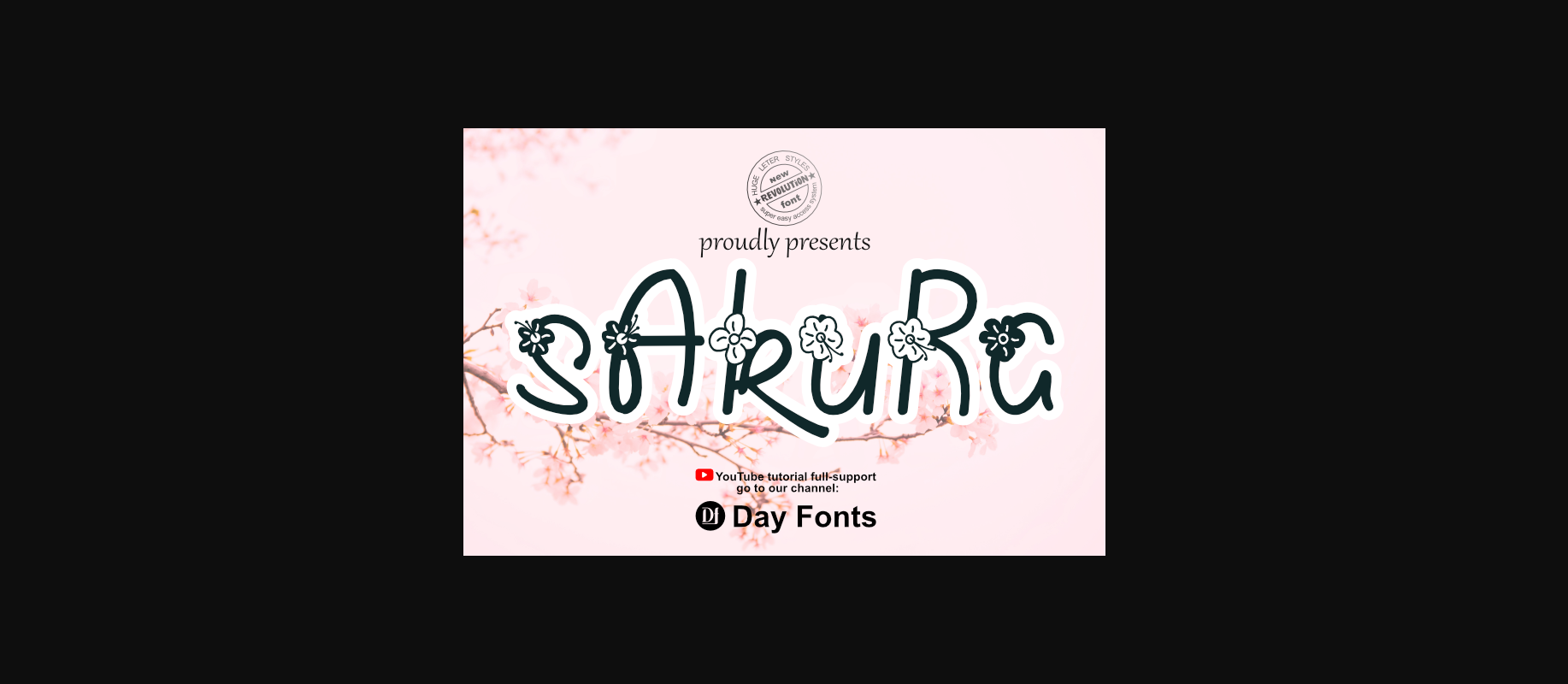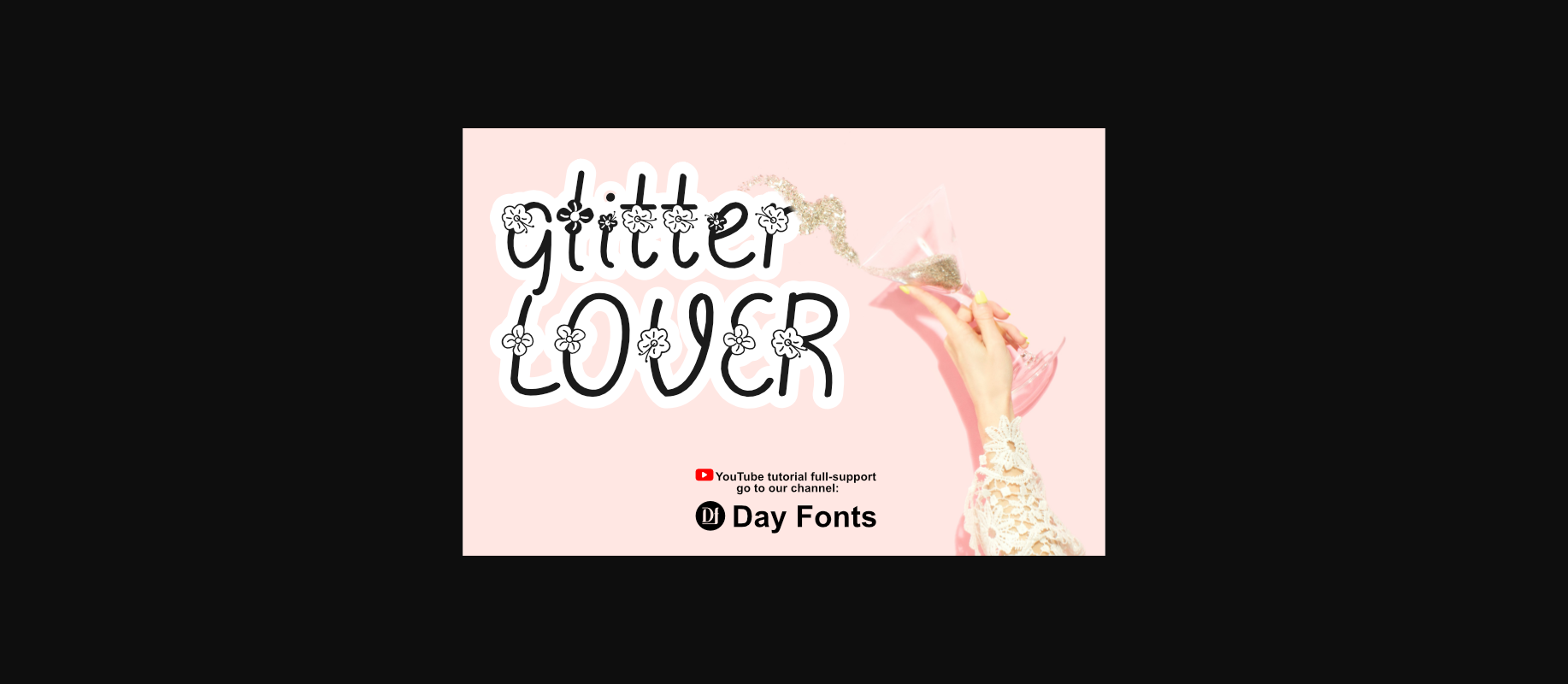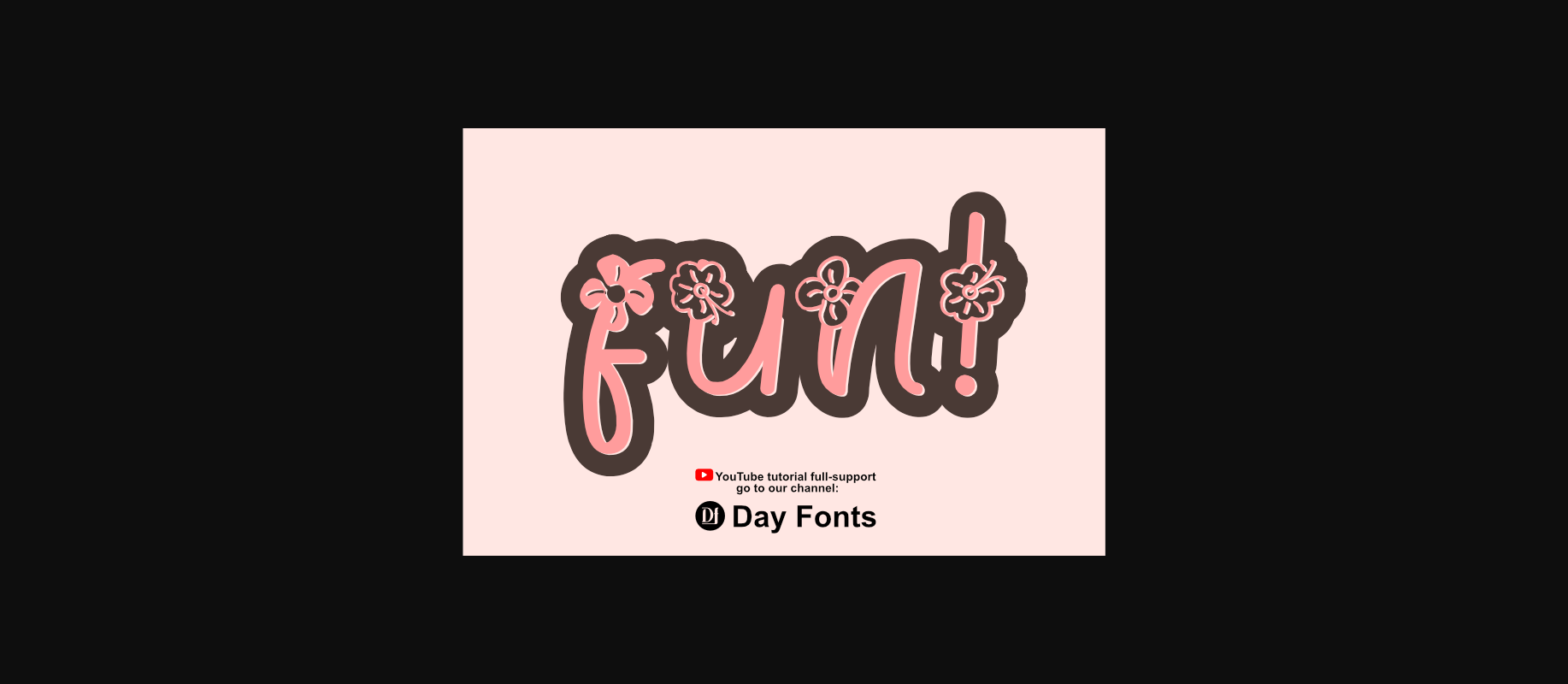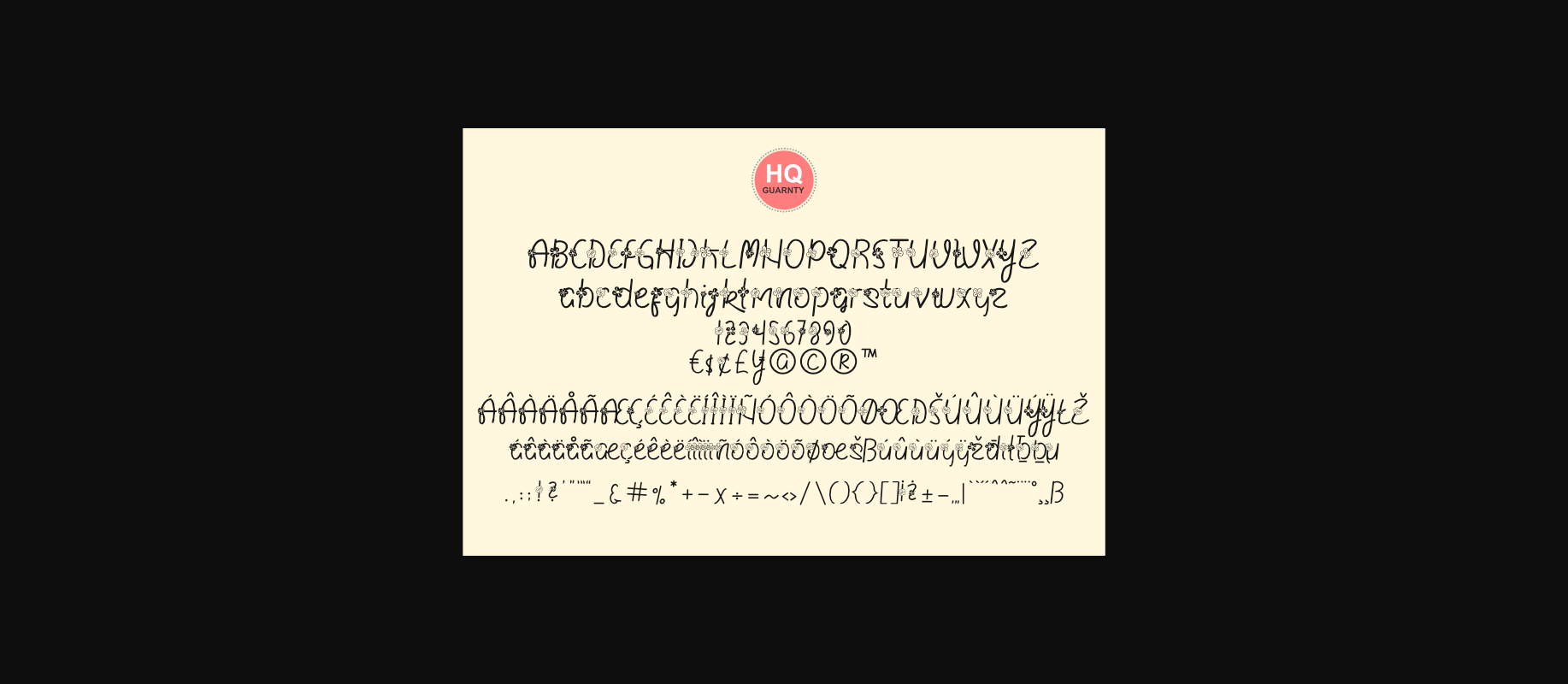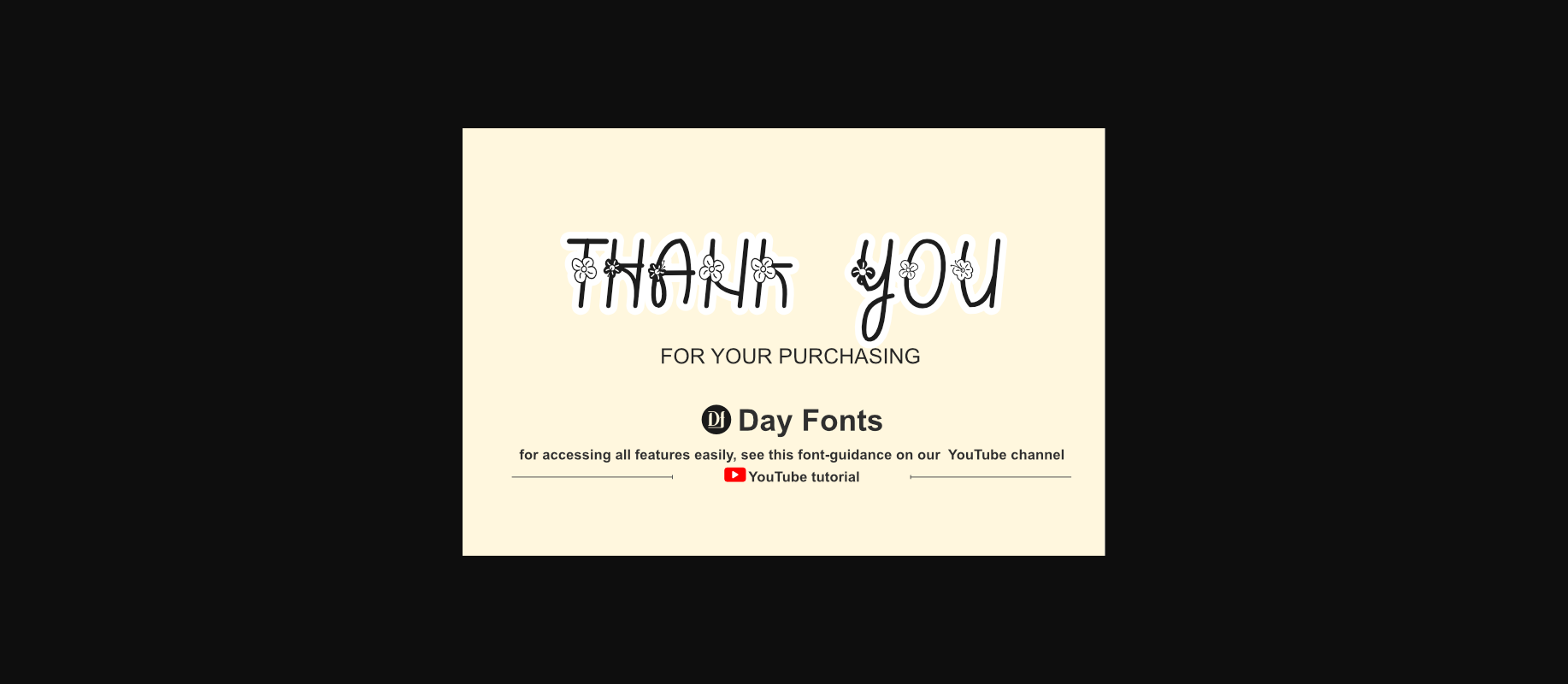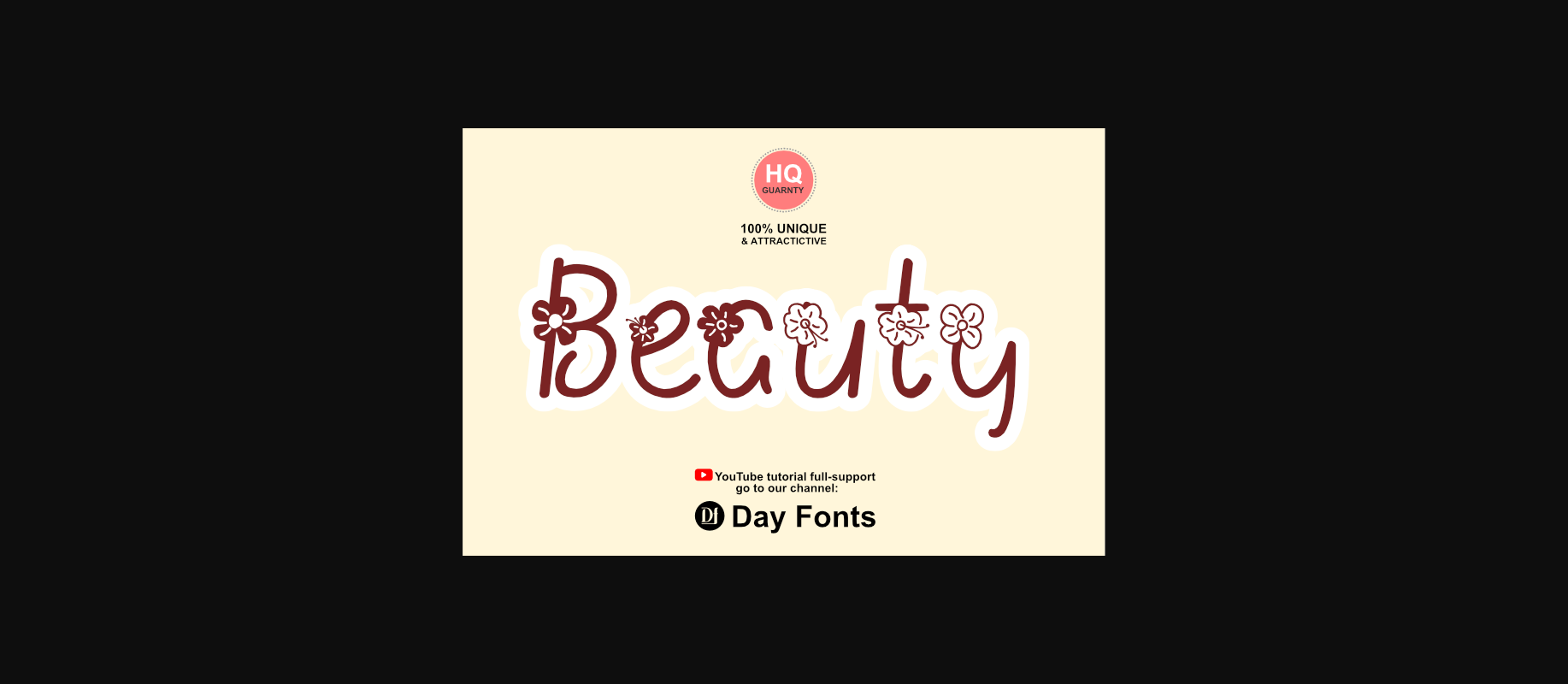
Sakura Font
About Sakura Font
Sakura is a sweet and dainty decorative font, featuring little flowers as ornaments. Warm, romantic and jolly, this font will turn each of your project ideas into real works of art. Have fun with this beautiful font and explore its endless variations.